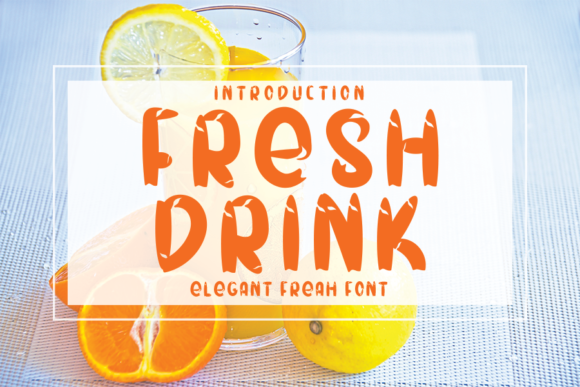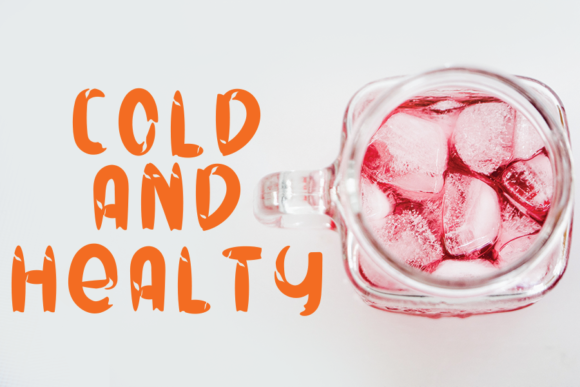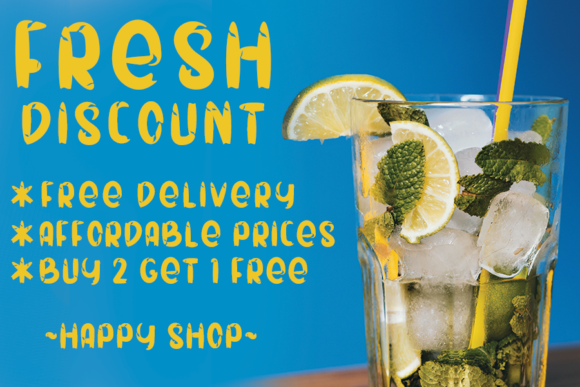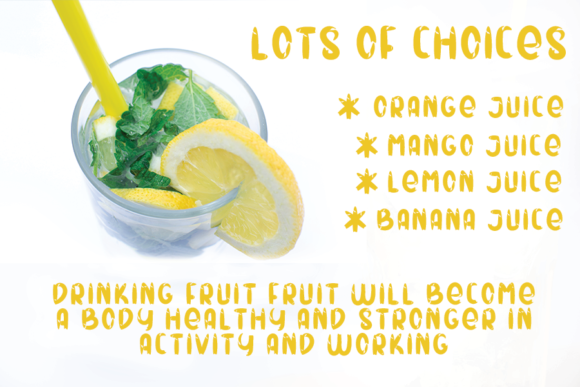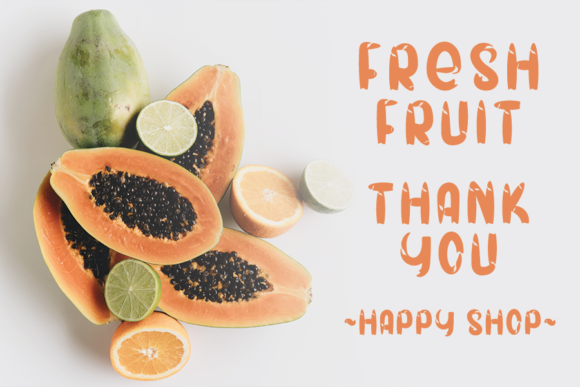
Fresh Drink Font
About Fresh Drink Font
Fresh Drink is a beautiful and eye-catching font. It will elevate a wide range of design projects to the highest level, be it branding, headings, wedding designs, invitations, signatures, logos, labels, and much more!